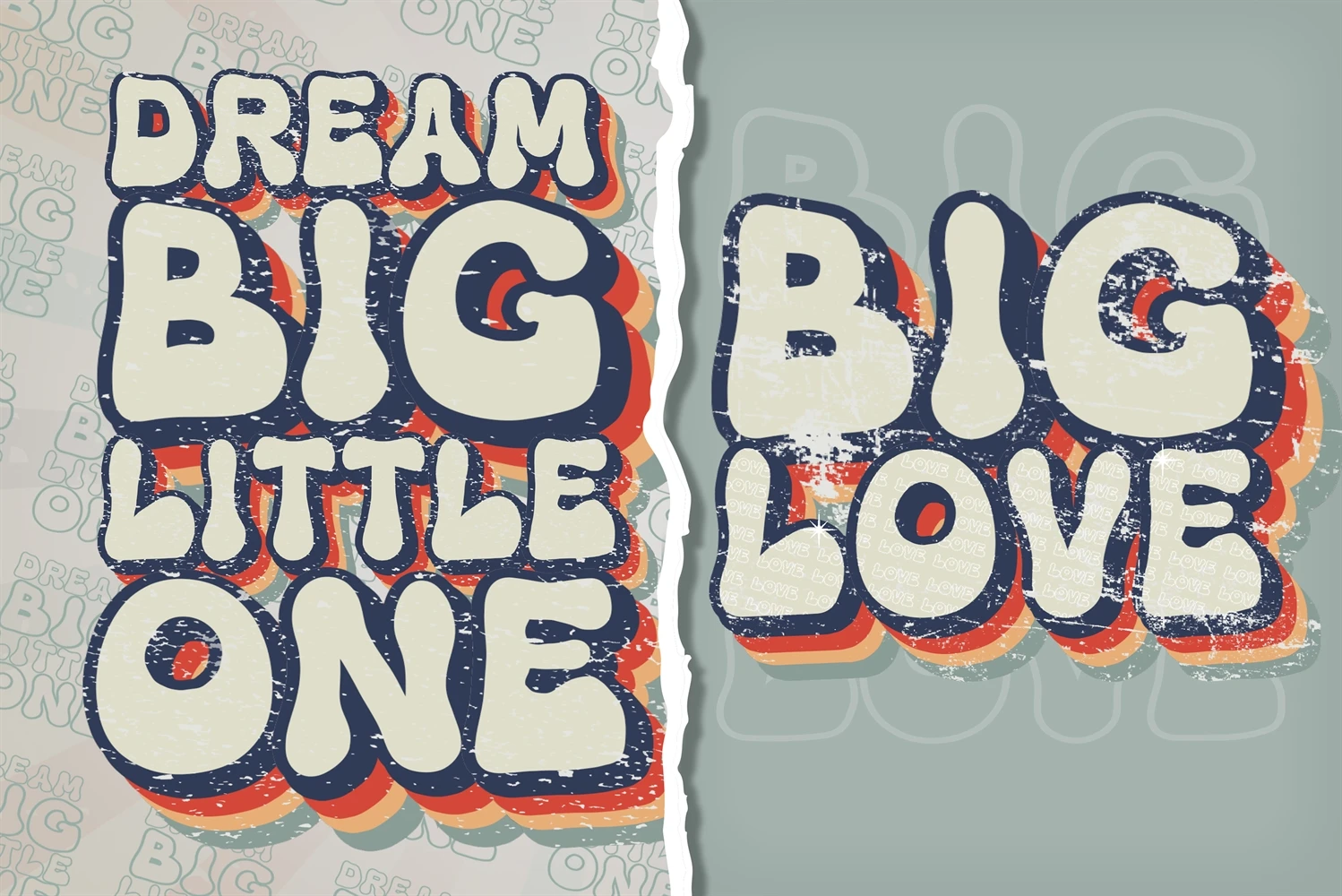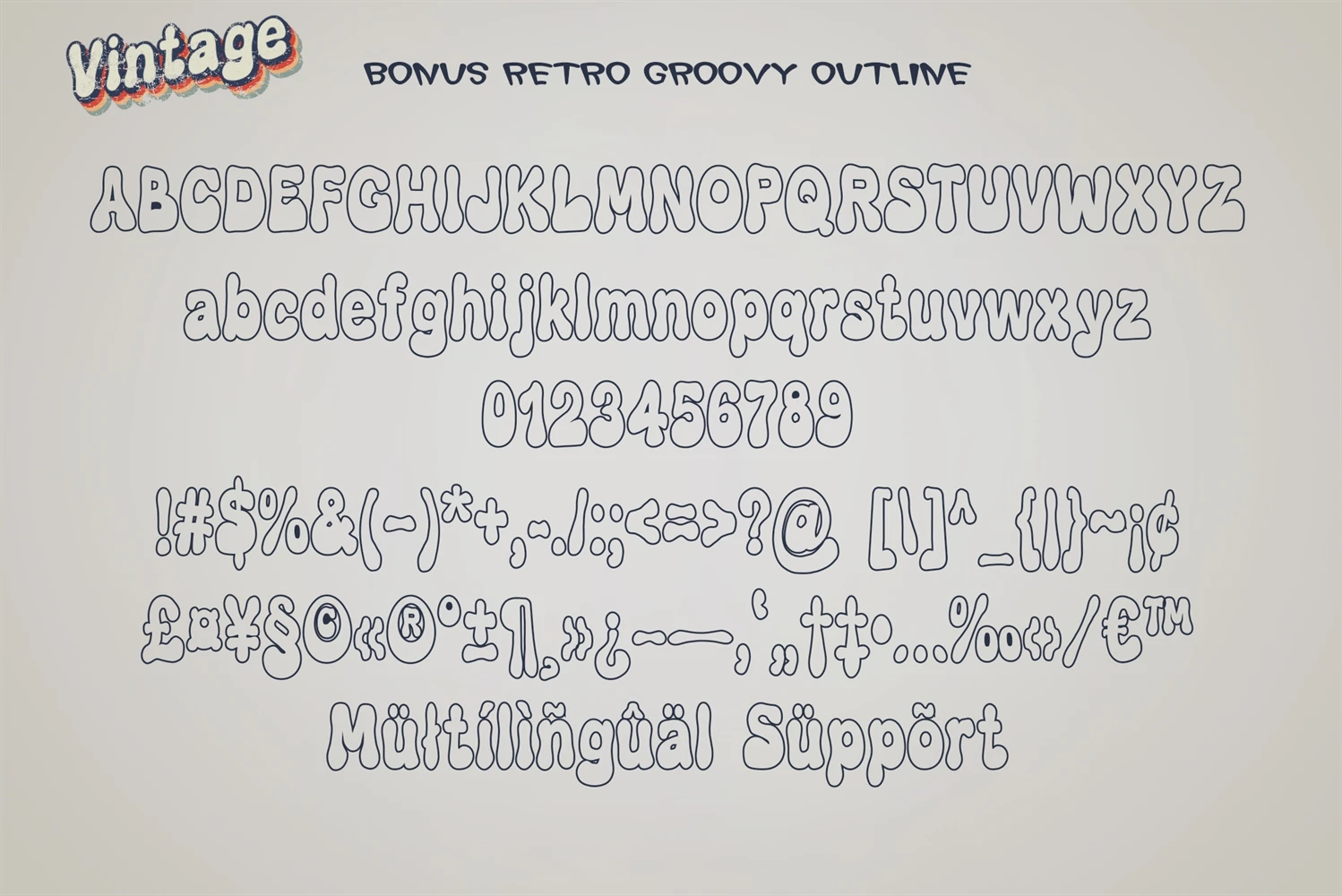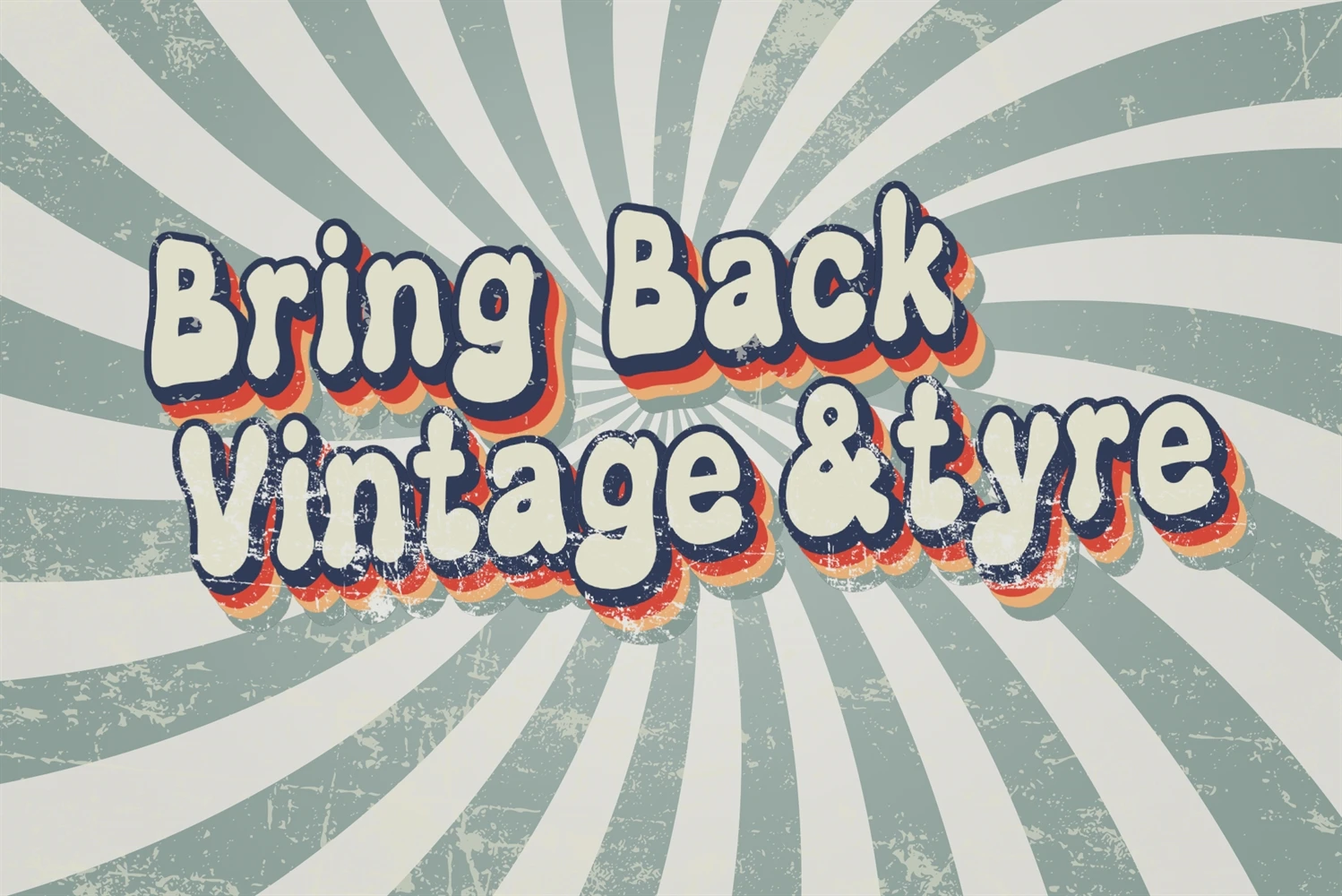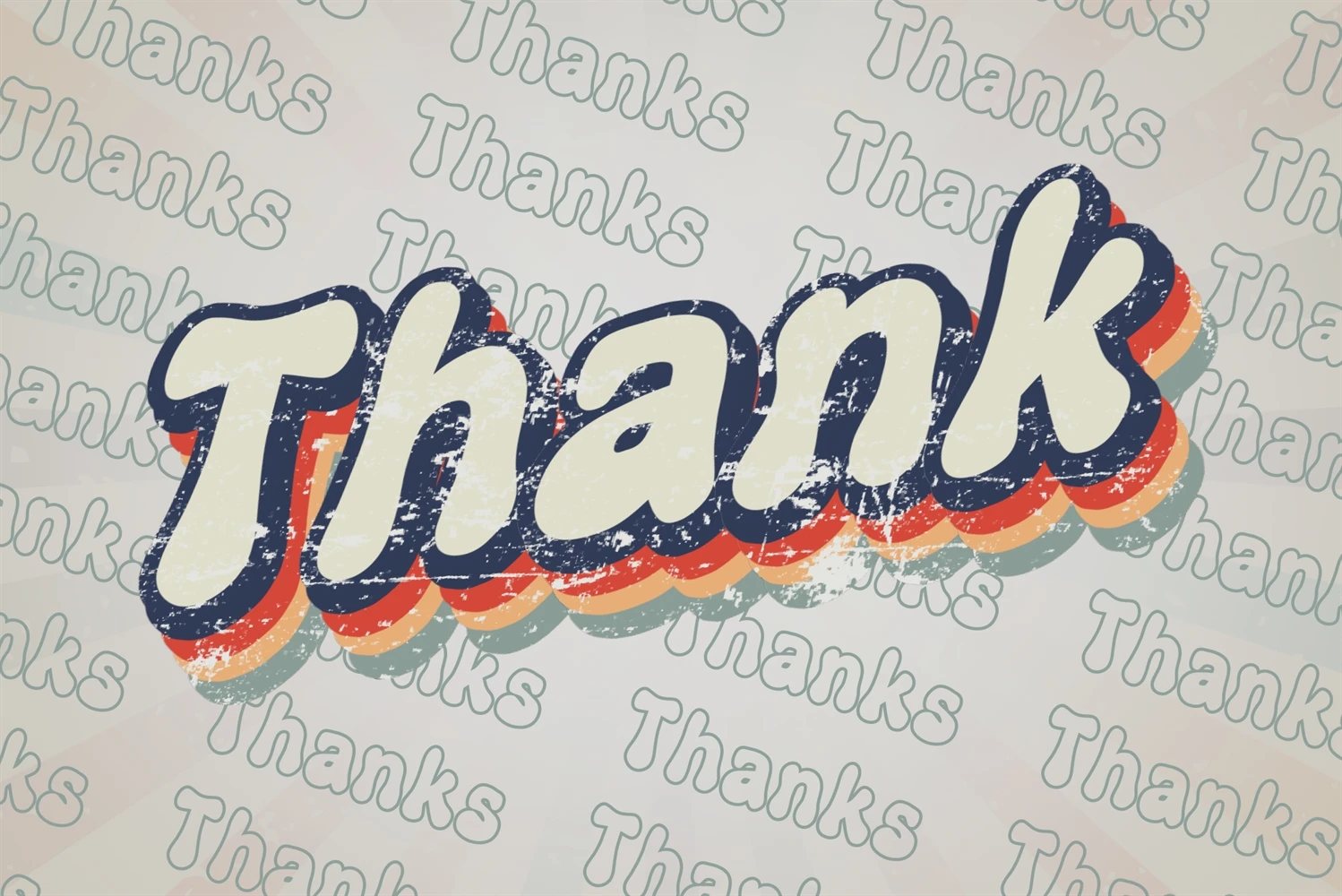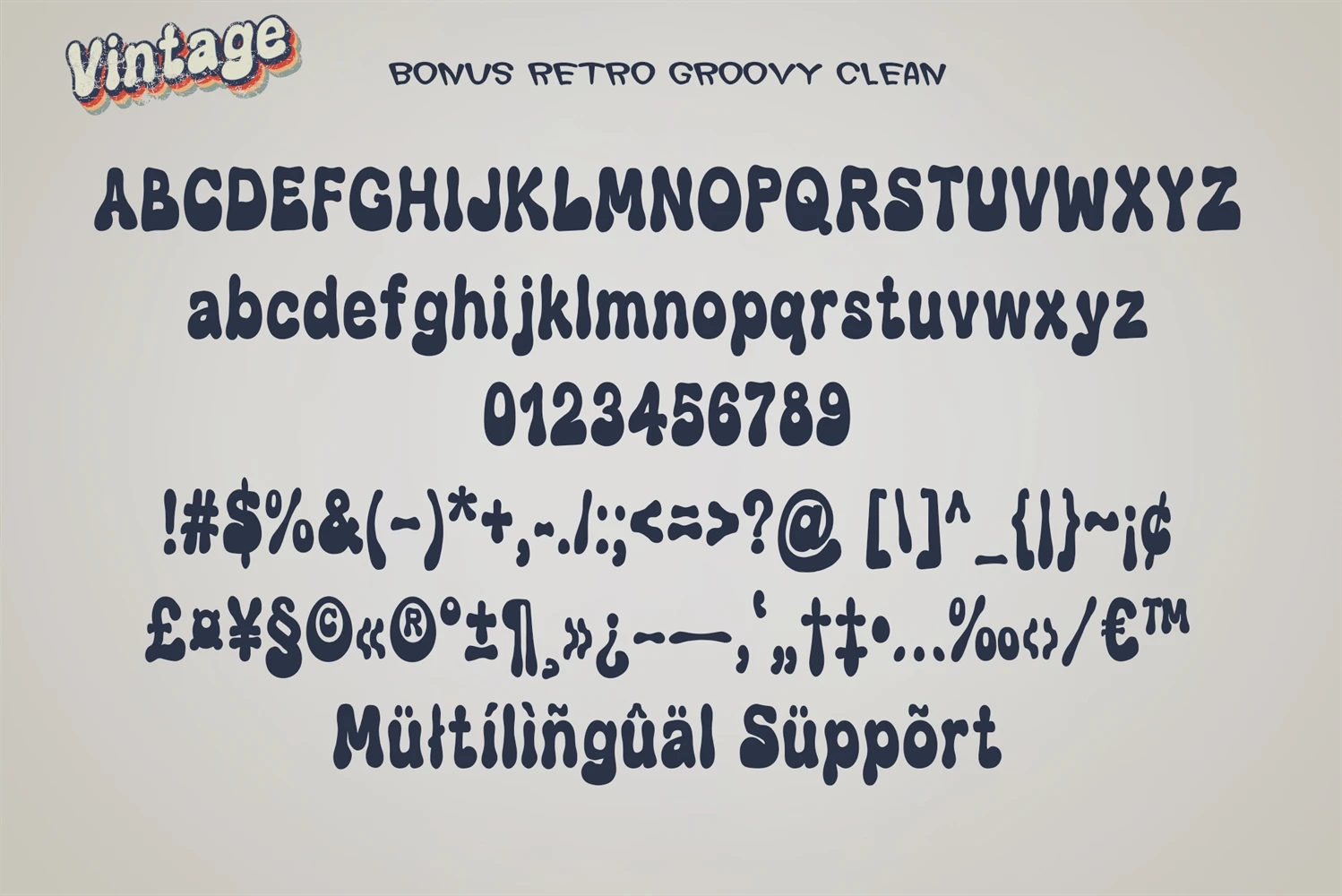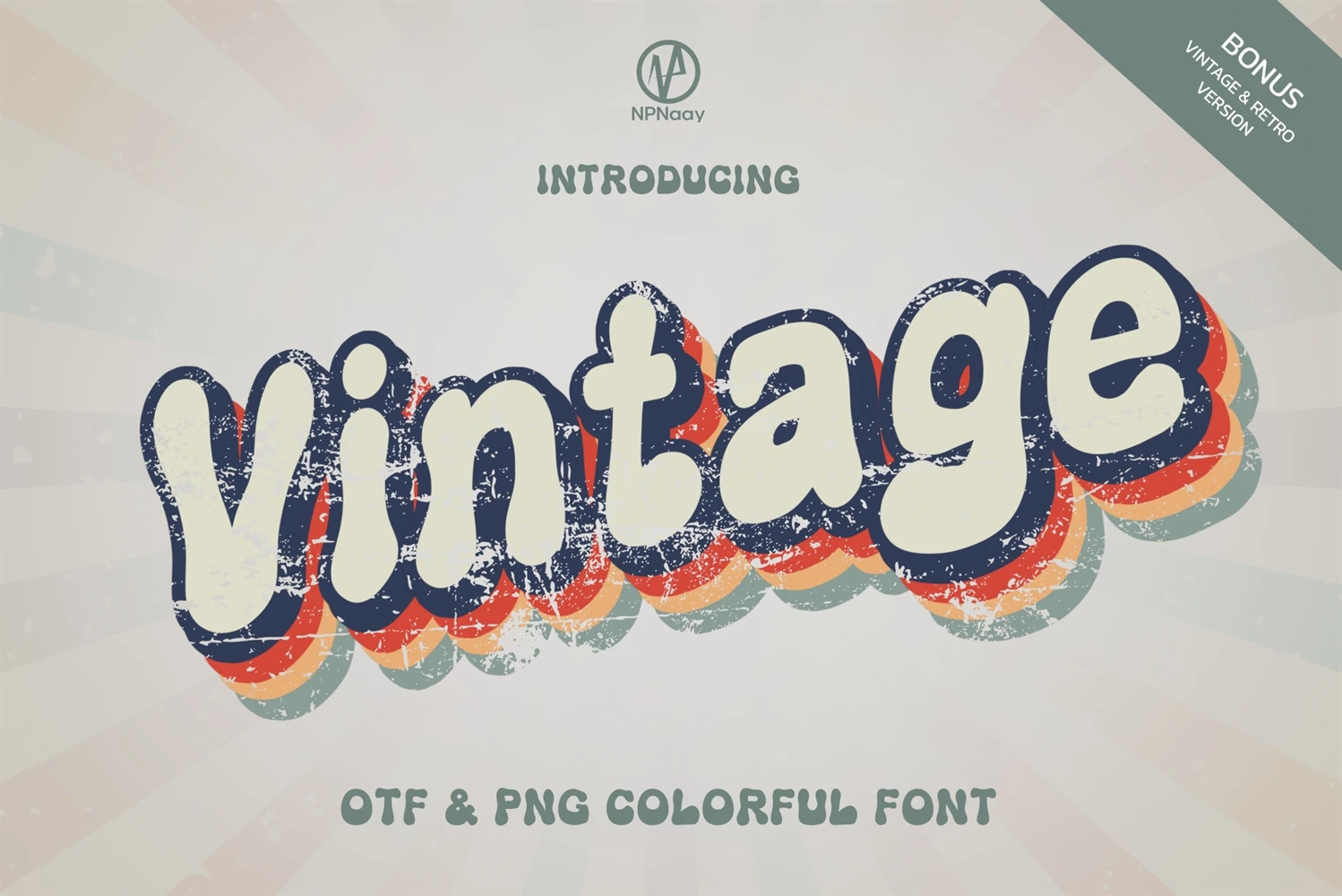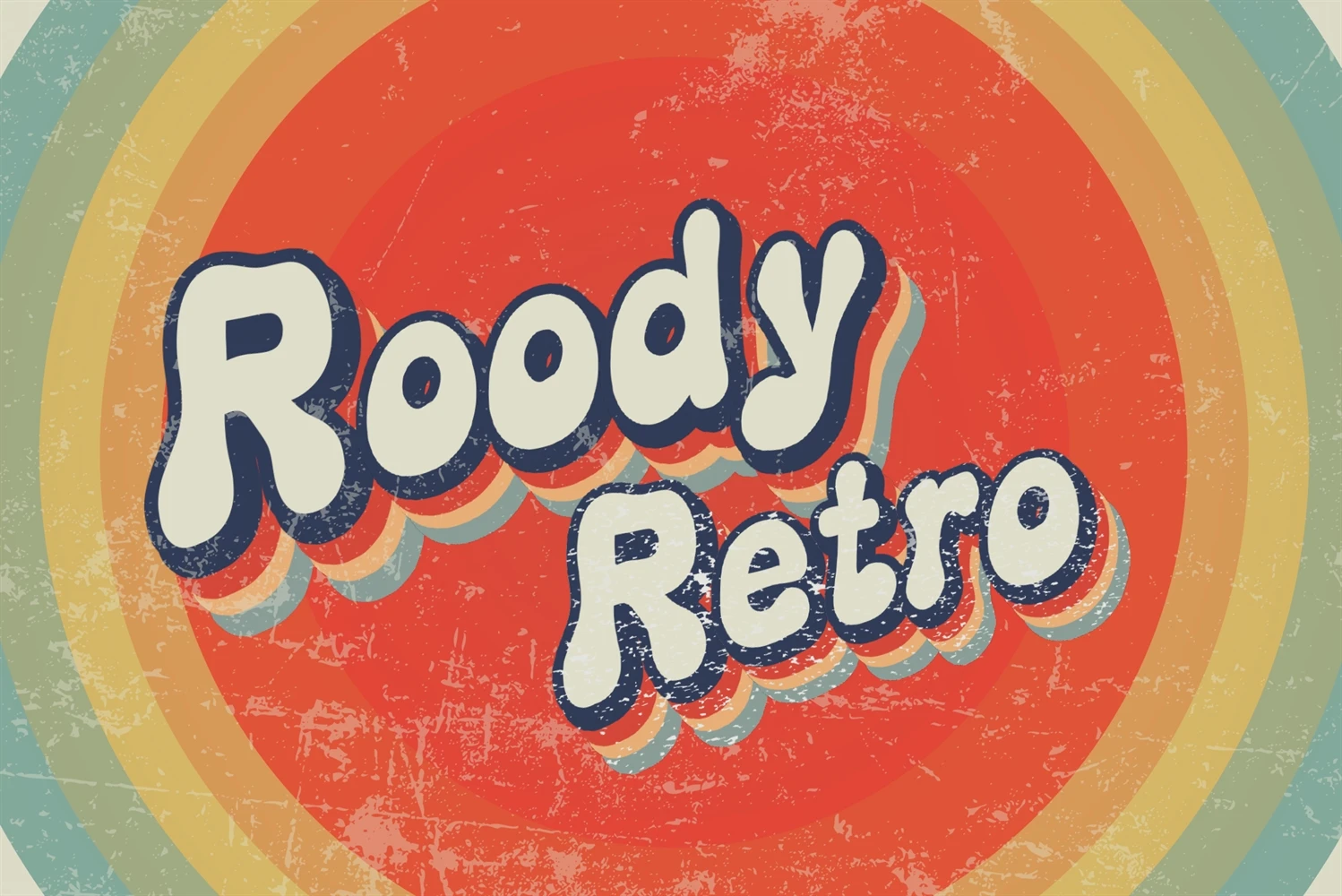
Vintage is a dazzling and thick color font. It has a vintage and eye-catching look that can be used for logos, branding, invitations, social media posts, and much more!